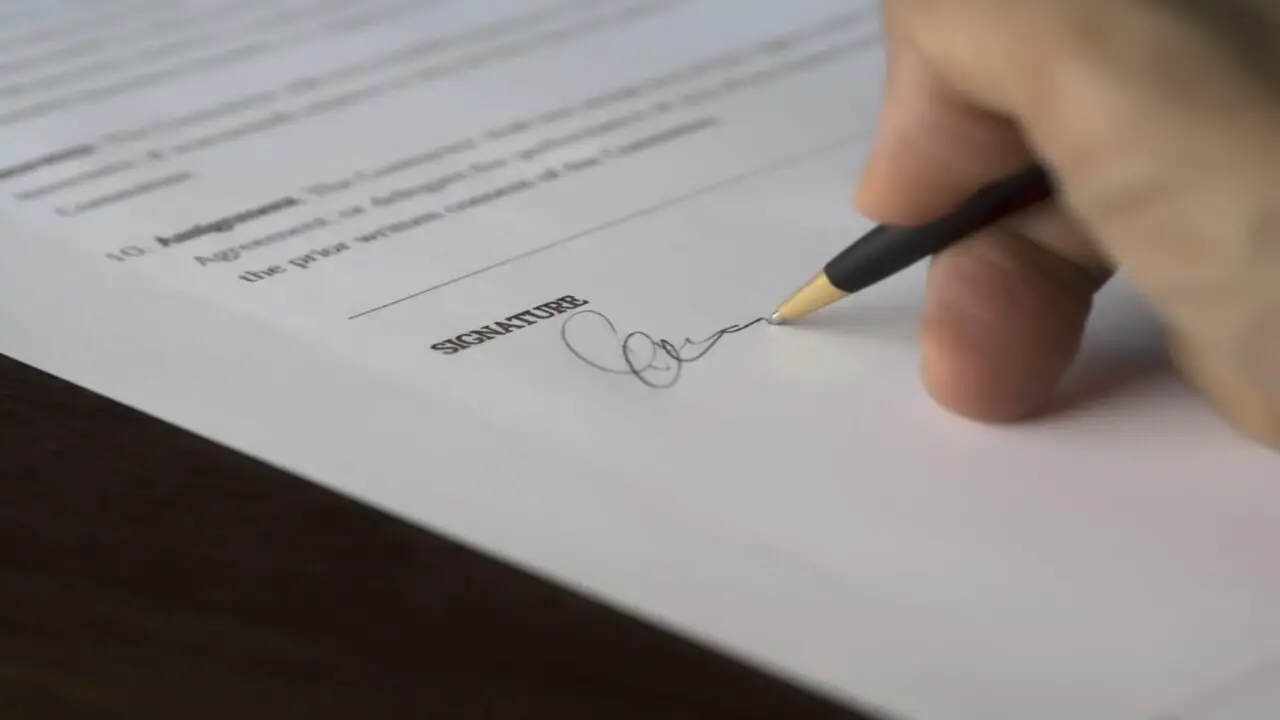
Legal documents may seem like their own world, filled with jargon and complex language. But you didn’t know that even the font you use in legal documents can make a significant impact. Here we will delve into everything you need to know about using the font in legal documents.
We will also walk you through the step-by-step process of use font in legal documents, including choosing the right font size, selecting an appropriate typeface, adjusting letter spacing, setting the correct line height, determining suitable margins, utilizing color and contrast, and incorporating graphics and symbols. By the end of this guide, you will have all the tools you need to create professional and visually appealing legal documents that leave a lasting impression.
How To Use Font In Legal Documents By Following The Below Guideline
In legal documents, font choice is crucial for readability and professionalism. Use widely accepted fonts like Times New Roman or Arial. Consider font size and line spacing for clarity. Proper formatting of headings, subheadings, and body text helps organize content. Use bold, italics, and underline effectively to highlight key information. Avoid using unprofessional fonts like Comic Sans or inappropriate font sizes. Here we give you the process of use font in legal documents.
1. Choosing The Right Font Size For Your Legal Document
Consider legibility and readability when choosing the font size for your legal document. Use a 12-point font for the main body to balance comfort and text density. Headings and subheadings can be slightly larger to distinguish them. Choose professional fonts like Times New Roman or Arial for a serious tone. Maintain consistency in font size and style throughout the document for a cohesive and professional look. This will ensure your legal documents are visually appealing and easily readable.
2. Select The Appropriate Typeface For Legal Documents
Choosing the right font for legal documents is crucial. Serif fonts like Times New Roman are commonly used for their formal look, while sans-serif fonts like Arial or Calibri can be used for headings to create hierarchy. Use a font size between 10-12 points for readability. Avoid decorative or script fonts, which can be hard to read and lack professionalism. Selecting the right typeface enhances the readability and professionalism of your legal documents.
3. Adjusting Letter Spacing To Ensure Legibility In Legal Documents
To enhance readability in legal documents, adjusting letter spacing is crucial. Striking the right balance is key – excessive spacing creates a disjointed appearance, while insufficient spacing makes the text hard to read. We recommend slightly wider letter spacing than standard text for legal documents to minimize gaps between letters.
Varying fonts may require different levels of spacing, so testing and adjusting are important. Also, considering line spacing and overall layout contributes to a visually balanced document that maintains professionalism and clarity while being easy to read.
4. Setting The Right Line Height For Your Legal Document
Line height, or leading, is important for readability and professionalism in legal documents. Too small makes the text cramped, while too large wastes space. Use a line height that provides spacing without compromising organization. Aim for a 120-150% line height of the font size.
5. Determining The Appropriate Margins For Your Legal Document
To ensure the acceptance and validity of your legal document in court, it’s crucial to determine the appropriate margins. The court or jurisdiction where the document will be filed usually specifies the margin size. Most courts require a 1-inch margin on all sides to prevent information from being cut off during printing or photocopying.
However, some courts may allow for slightly smaller margins, such as 0.75 inches. Confirm the requirements with the specific court or jurisdiction. Additionally, selecting an appropriate font size and style is important for readability and professionalism in legal documents.
6. Utilizing Color And Contrast In Legal Documents
When choosing fonts for legal documents, prioritize readability and professionalism. Use a serif font like Times New Roman for the body text to ensure legibility. Avoid decorative or script fonts as they can be hard to read and may not be accepted by courts or legal professionals.
Stick to black or dark grey for most of the text to maintain a professional appearance. Use contrasting colors sparingly and strategically to highlight important information. Check local court rules and guidelines for font usage, as well as any restrictions on color or formatting choices for legal documents.
7. Incorporating Graphics And Symbols In Your Legal Document
Graphics and symbols can enhance the visual appeal and understanding of legal documents. Choose relevant graphics with clear meanings and strategically place them to highlight key points. Ensure that they don’t violate copyright laws. Maintain consistency in font style, size, and formatting for professionalism and readability in legal documents.
4.What Is The Best Font For A PDF?
Ans: The best font for a PDF depends on the document’s purpose and audience. Popular options like Arial, Times New Roman, and Calibri are known for their readability in PDFs.
5.What Is The Correct Font For Legal Documents?
Ans: The recommended font for legal documents is Times New Roman, but Arial and Calibri are also acceptable. The font size should be 12 points. Choosing a clear and legible font is crucial to ensure that the document is easy to read and maintains a professional appearance.